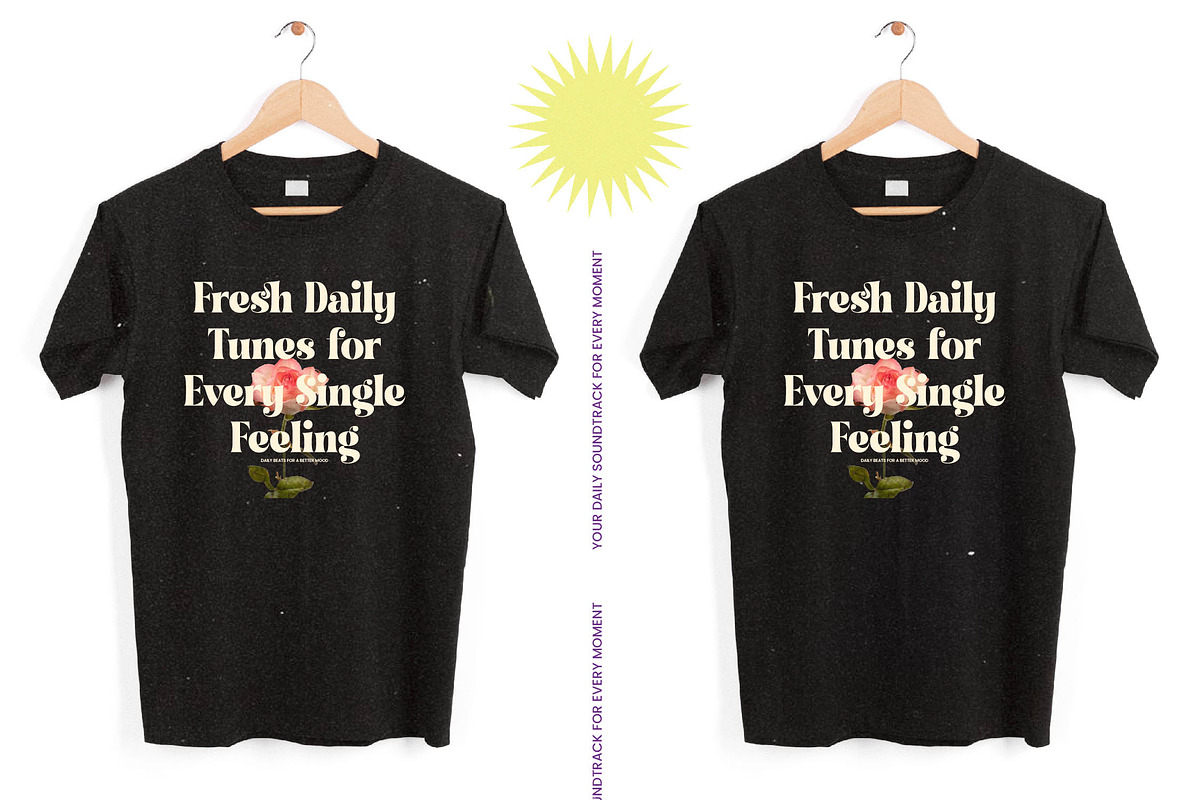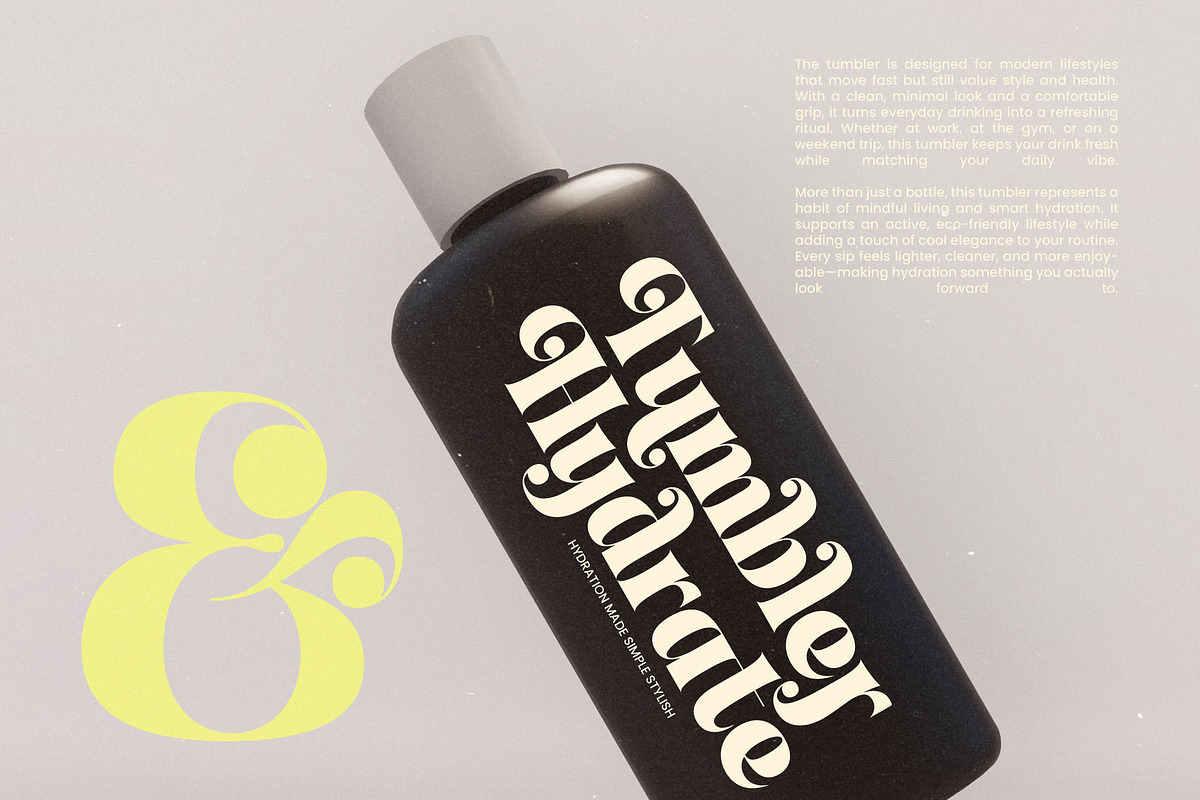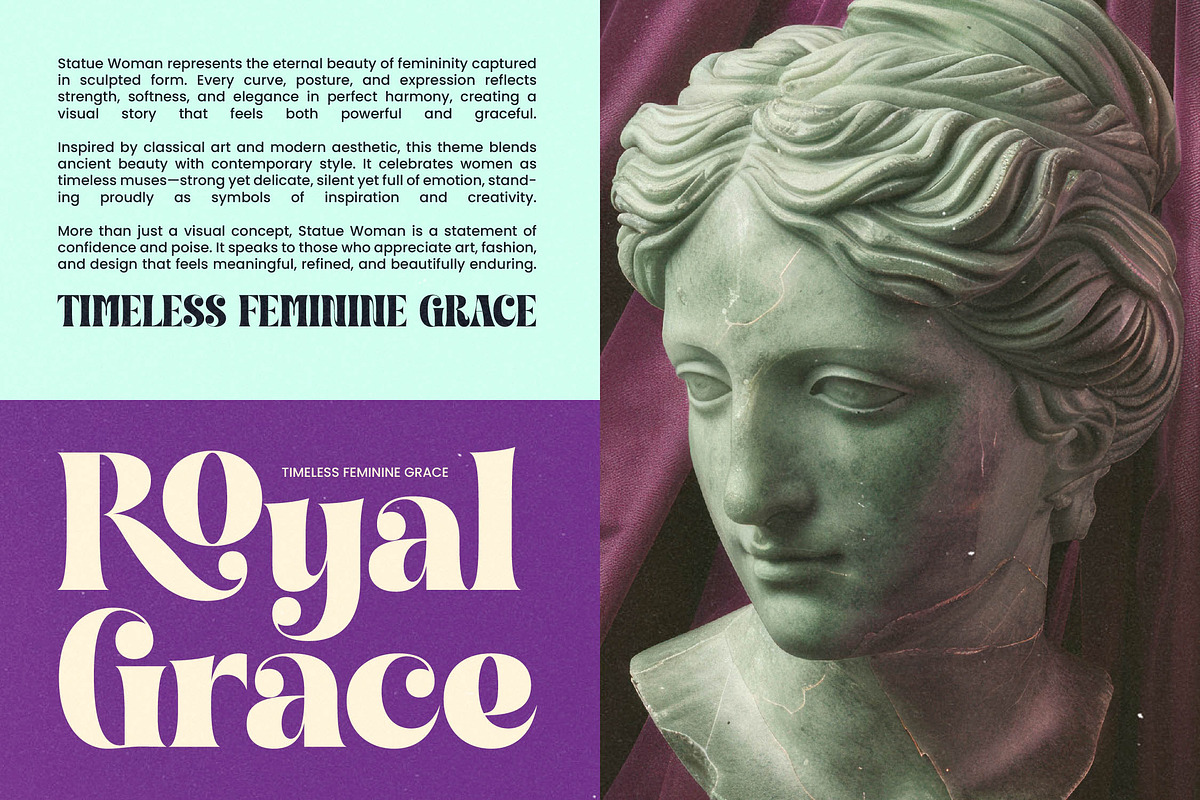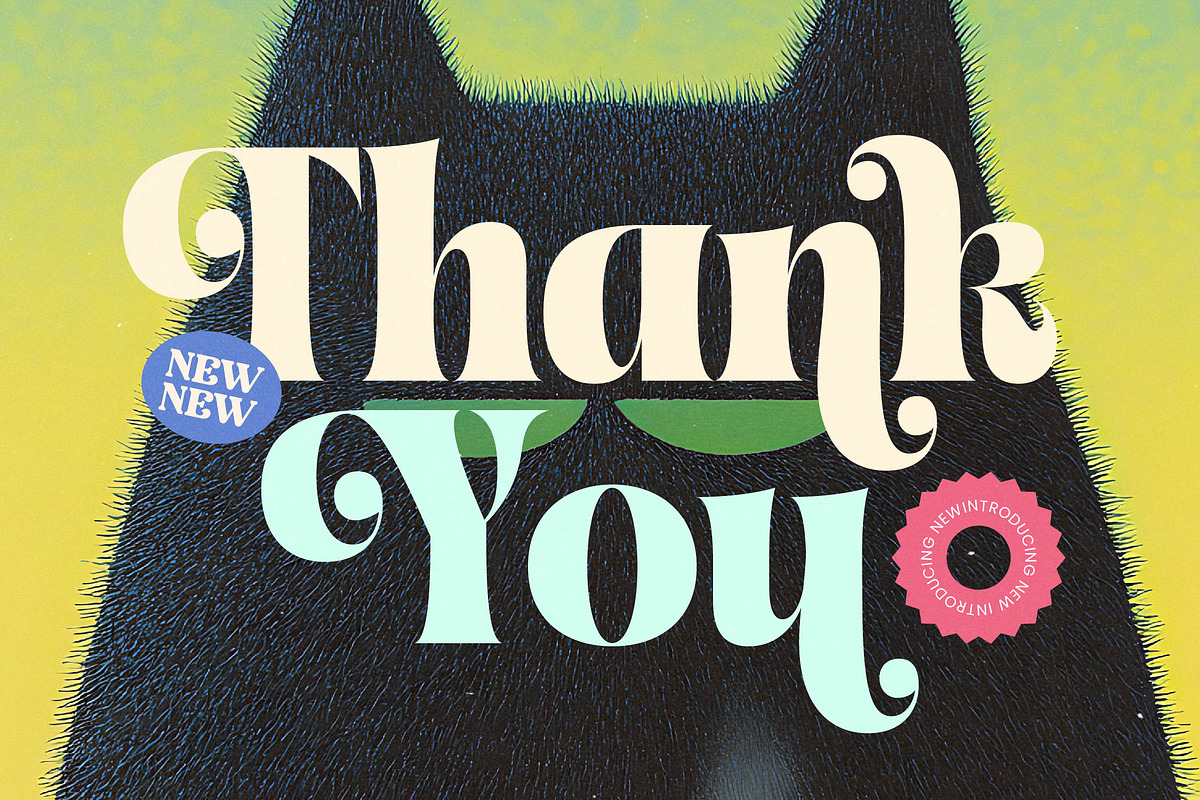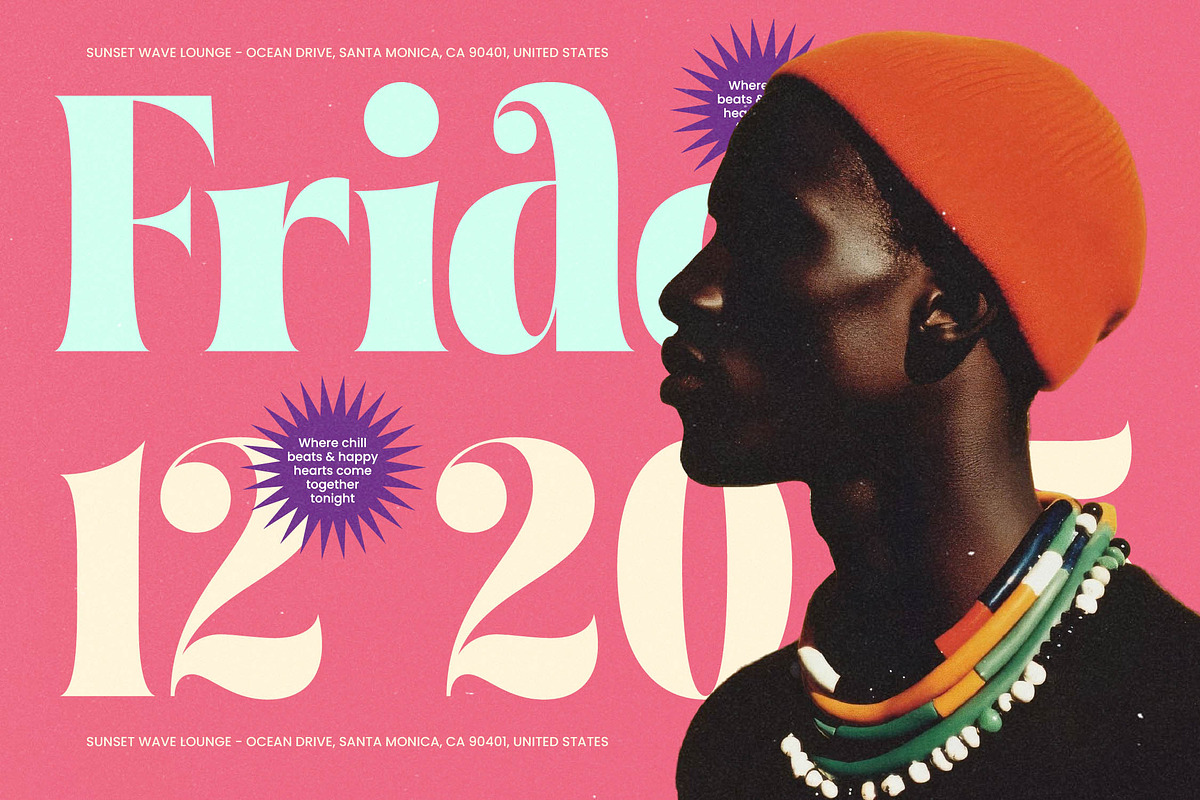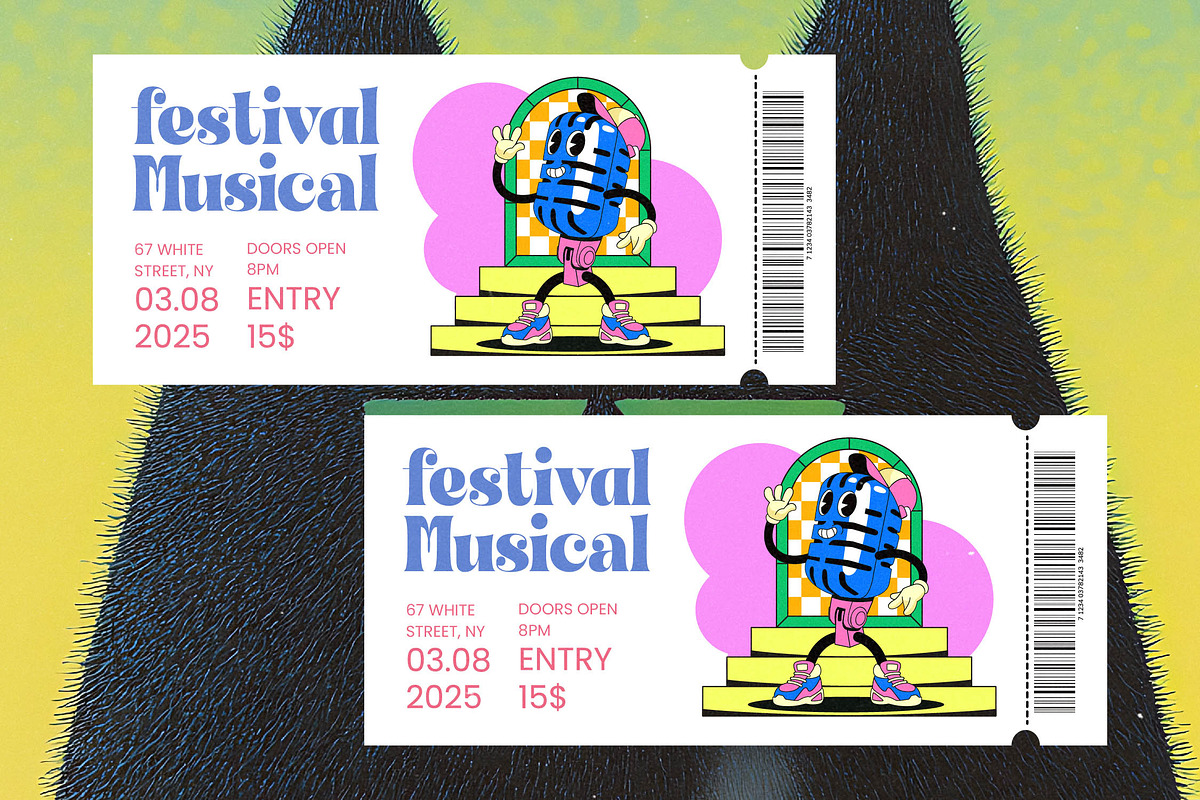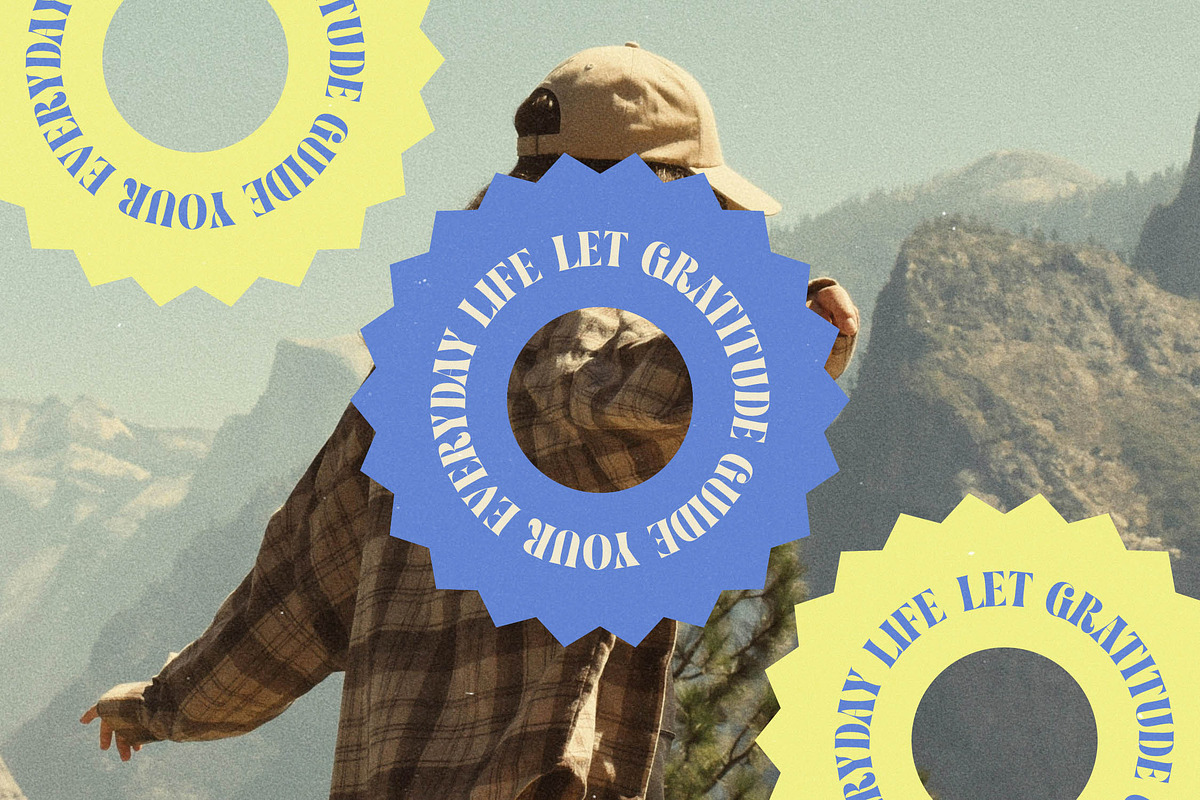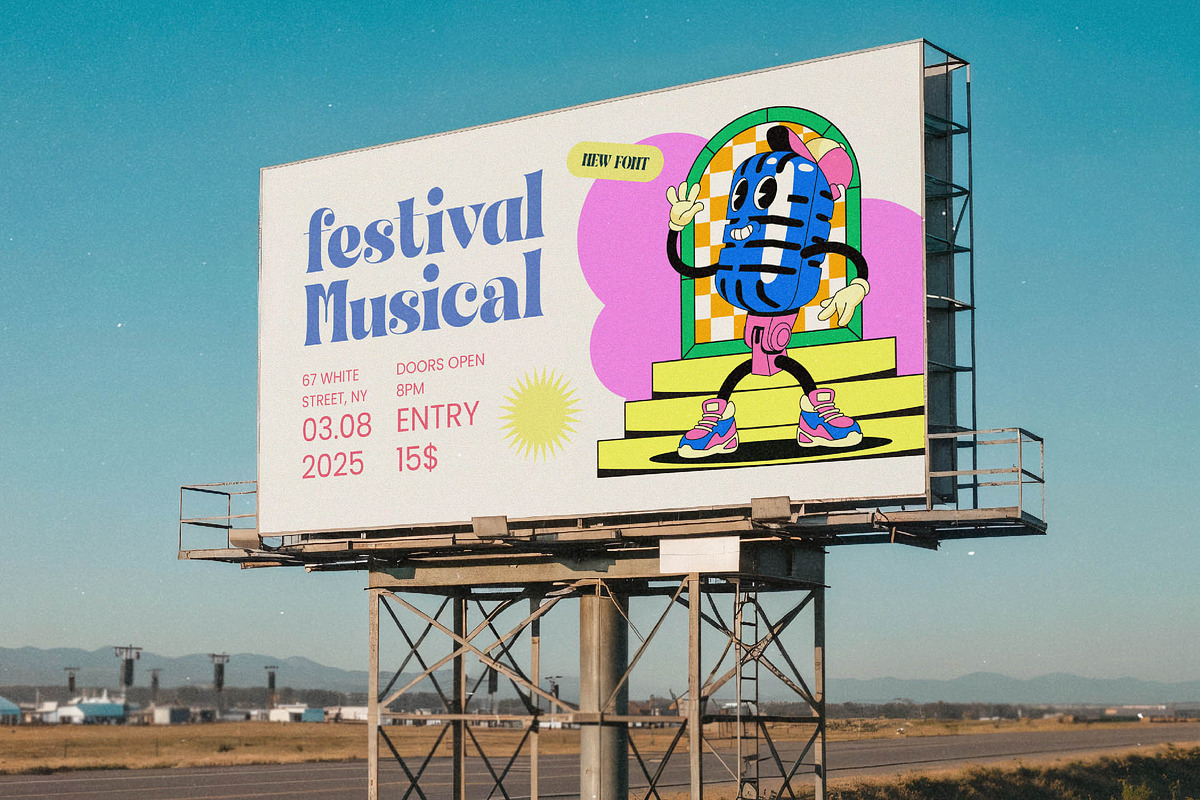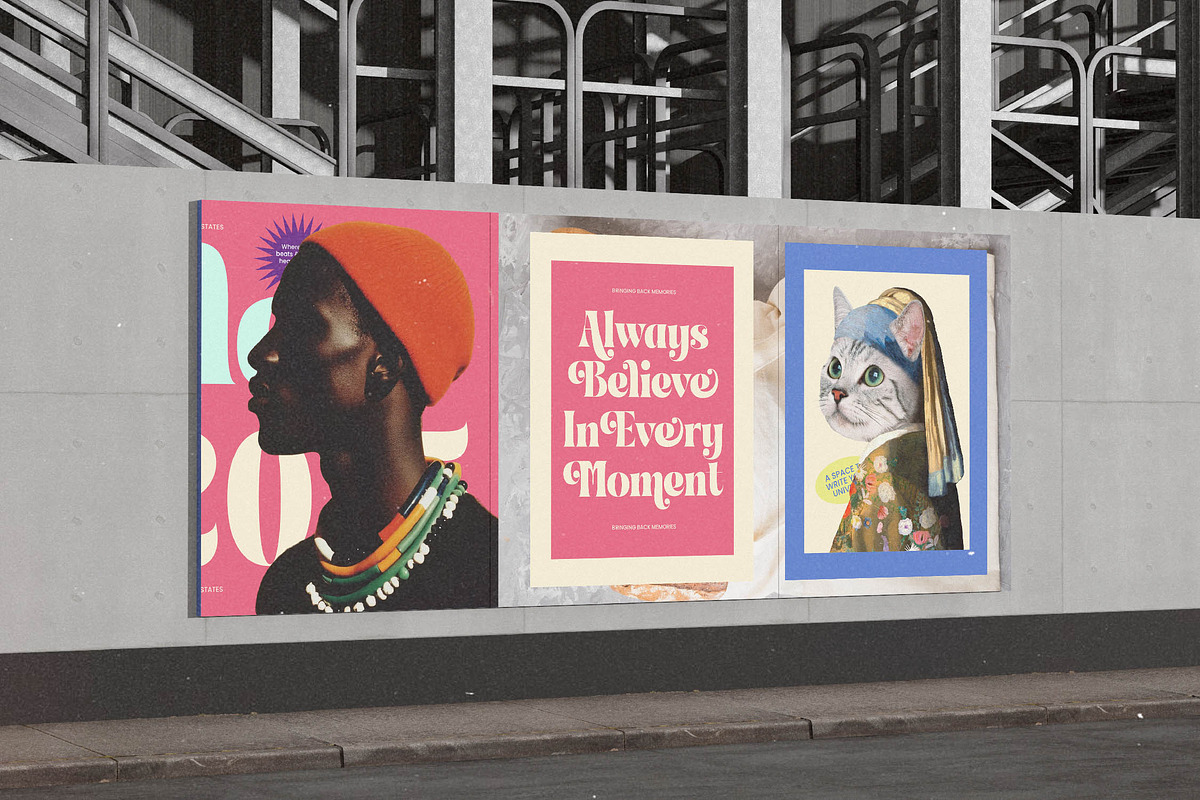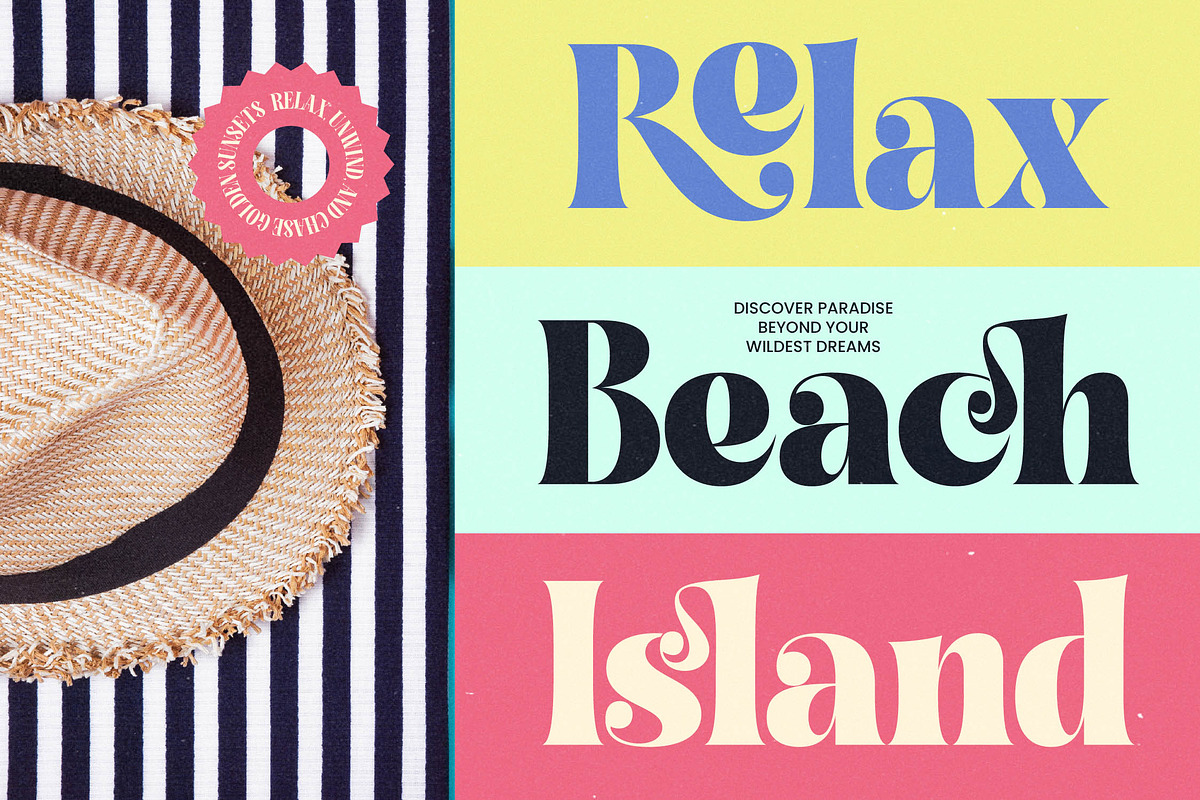
Fresh Kinetic Bold Display Serif
Elevate your visual storytelling with the vibrant energy of Fresh Kinetic, a font designed to make every word dance off the page. This is more than just a typeface; it is a pulse of creativity that brings an unmistakable rhythm to your next masterpiece.
Inspired by the rhythmic flow of mid-century modernism and the playful spirit of contemporary character design, this font captures the essence of fluid movement. It draws from the golden age of advertising while injecting a fresh soul that feels both nostalgic and futuristic.
This modern serif display delivers a sophisticated yet approachable luxury typography experience that commands immediate attention. With its high-contrast serif details and fluid terminals, it serves as a powerful editorial font that ensures a lasting branding impact across digital and print mediums.
Perfectly aligned with the current modern serif trend, this typeface meets the growing demand for editorial display fonts that feel unique and handcrafted. It embraces the rise of character-driven typography, offering designers a tool that stands out in a sea of sterile geometric designs.
Whether you are crafting a standout logo design or building a comprehensive branding identity, this font is incredibly versatile and expressive. It thrives in editorial layouts, high-end packaging, romantic wedding stationery, and the fast-paced world of fashion marketing.
The set is meticulously crafted with 27 expressive ligatures and 70 stylistic alternates to provide endless creative possibilities for your layouts. It also includes decorative swashes and full multilingual support with over 430 international characters to ensure your message reaches a global audience.